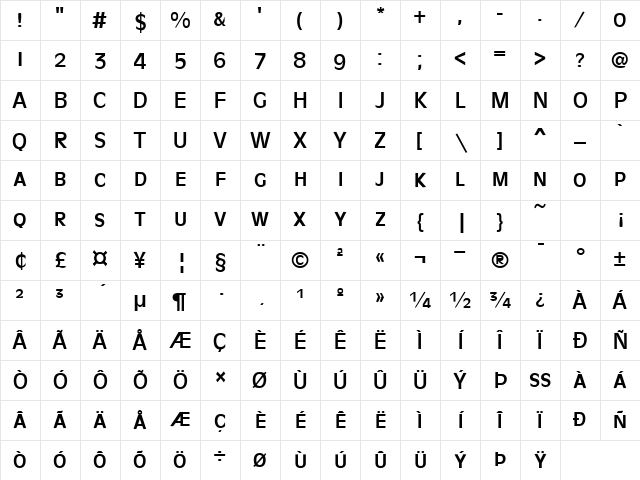
AntiqueOliveSmc wears its vintage influences proudly, with letterforms that recall mid-century signage, classic packaging, and nostalgia-driven design.
Font Pairing: Combine AntiqueOliveSmc with a simple slab or neutral sans - period-accurate companions reinforce the vintage feel without competing for attention.
Pro Tip: Lean into AntiqueOliveSmc's period character by pairing it with aged paper textures, muted colour palettes, and vintage illustration styles.